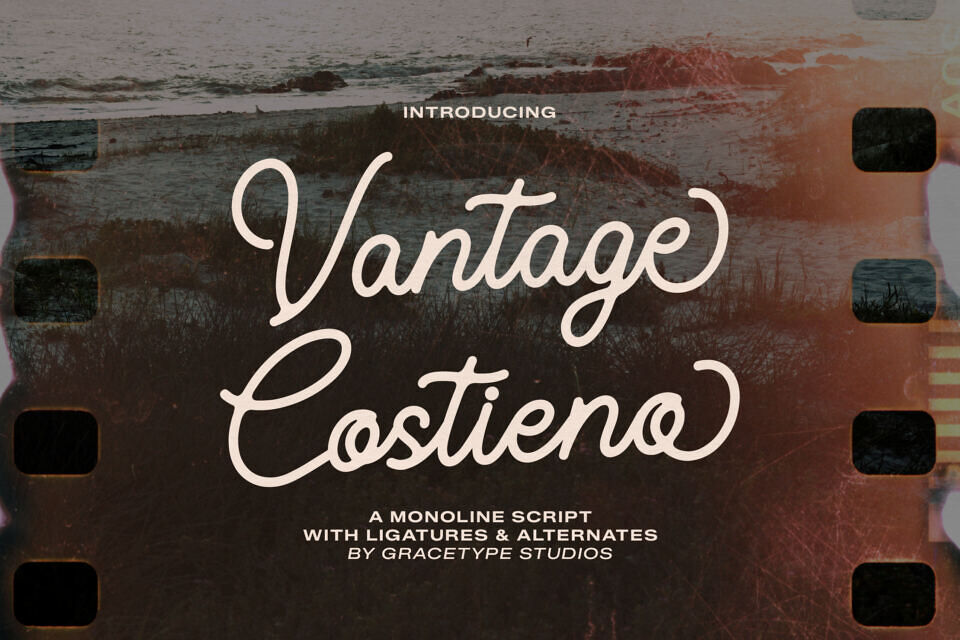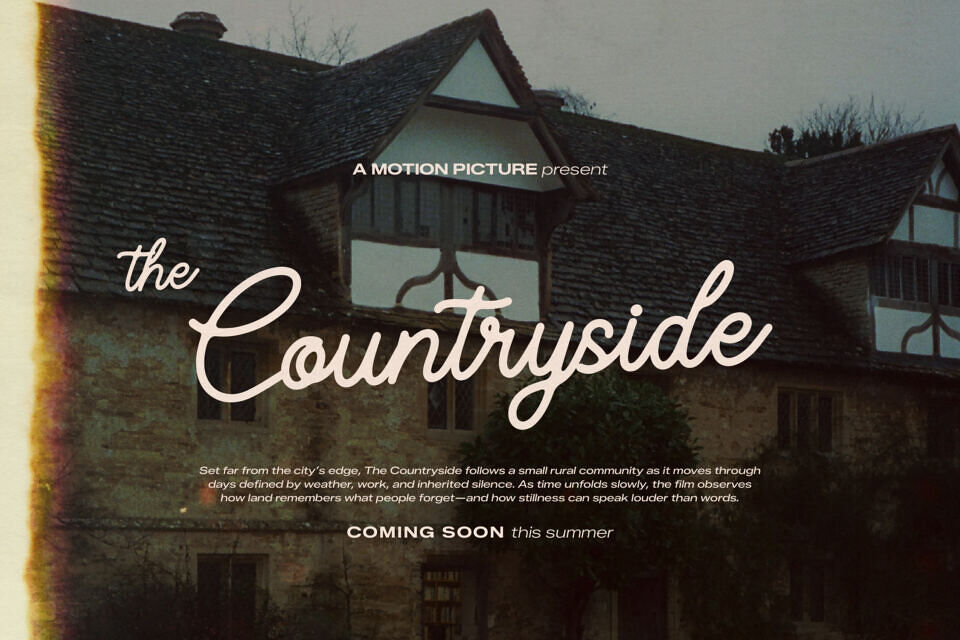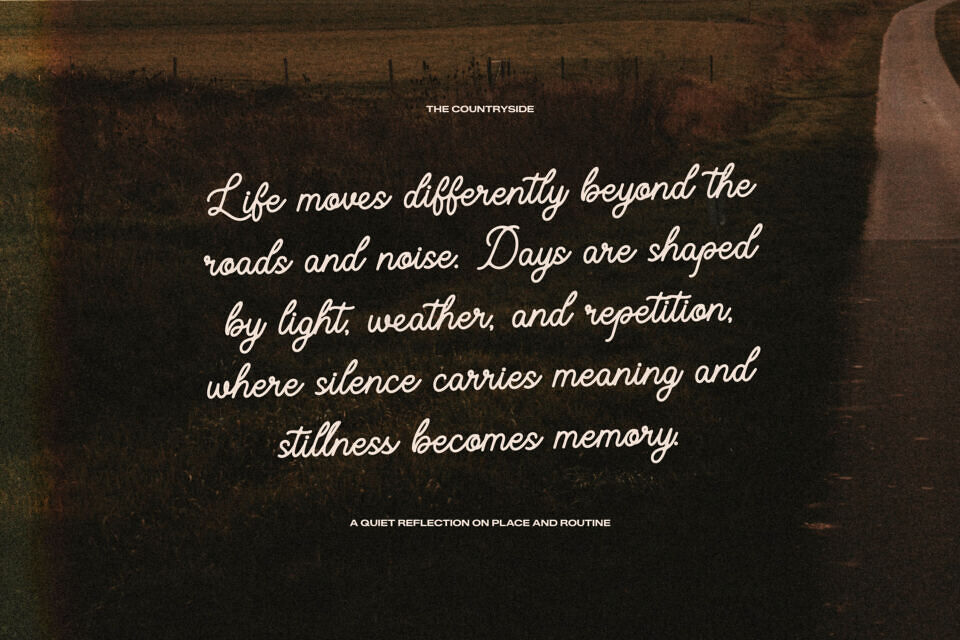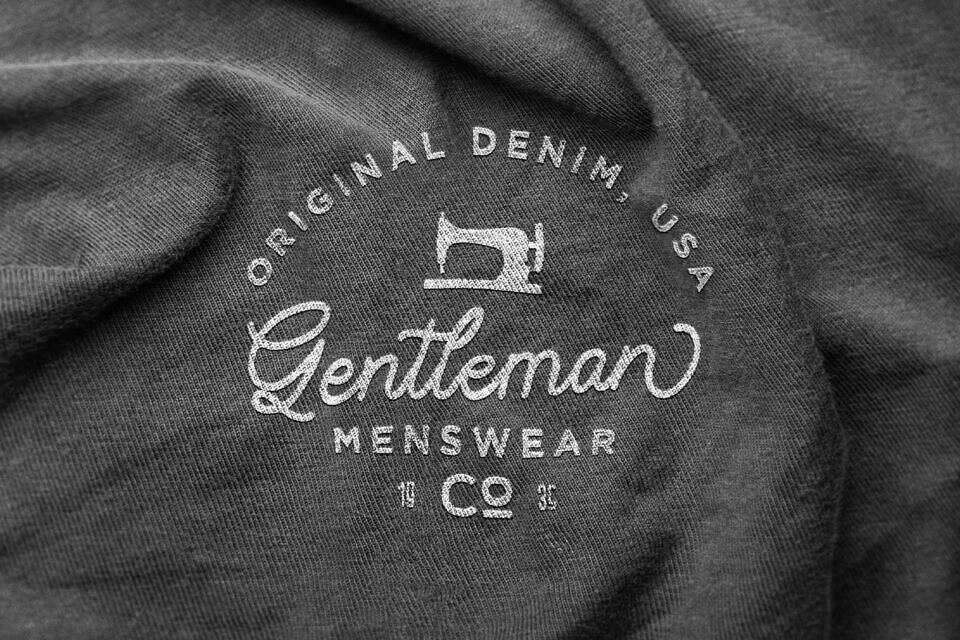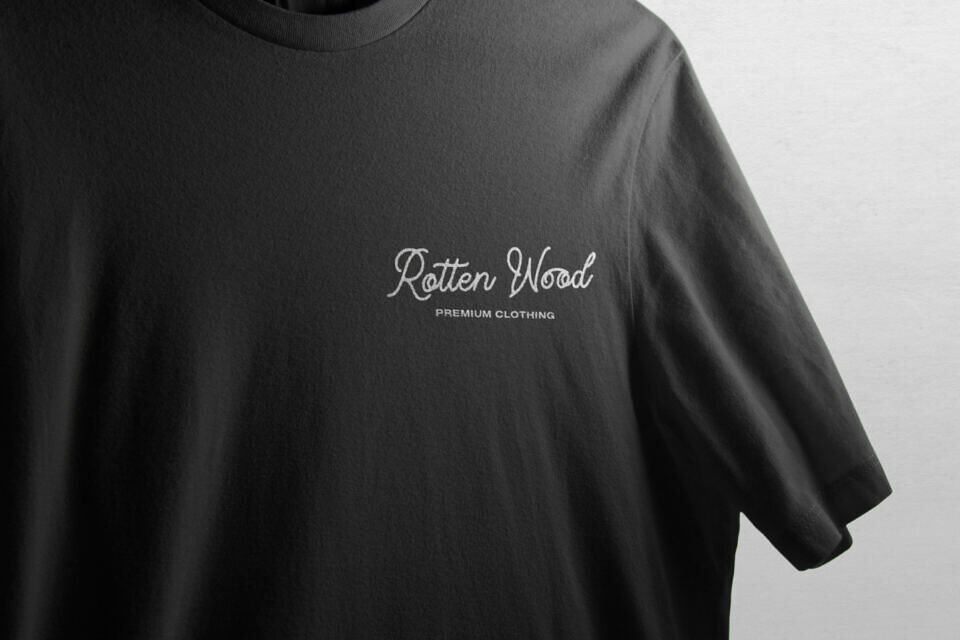
Vantage Costieno Font
Capture the essence of effortless elegance with Vantage Costieno, a stunning “Monoline Script” that brings a personal, handcrafted touch to your creative projects. This typeface is defined by its consistent stroke weight, mimicking the smooth flow of a fine-tip marker or a designer fountain pen.
The Vantage Costieno font is packed with OpenType features, including beautiful ligatures and stylistic alternates that allow you to customize your text for a truly bespoke feel. The Vantage Costieno typeface is a dream for wedding stationery, luxury branding, and high-end packaging. Use the Vantage Costieno font to create elegant signatures for photographers, romantic invitations, or “thank you” notes that feel genuinely heartfelt.